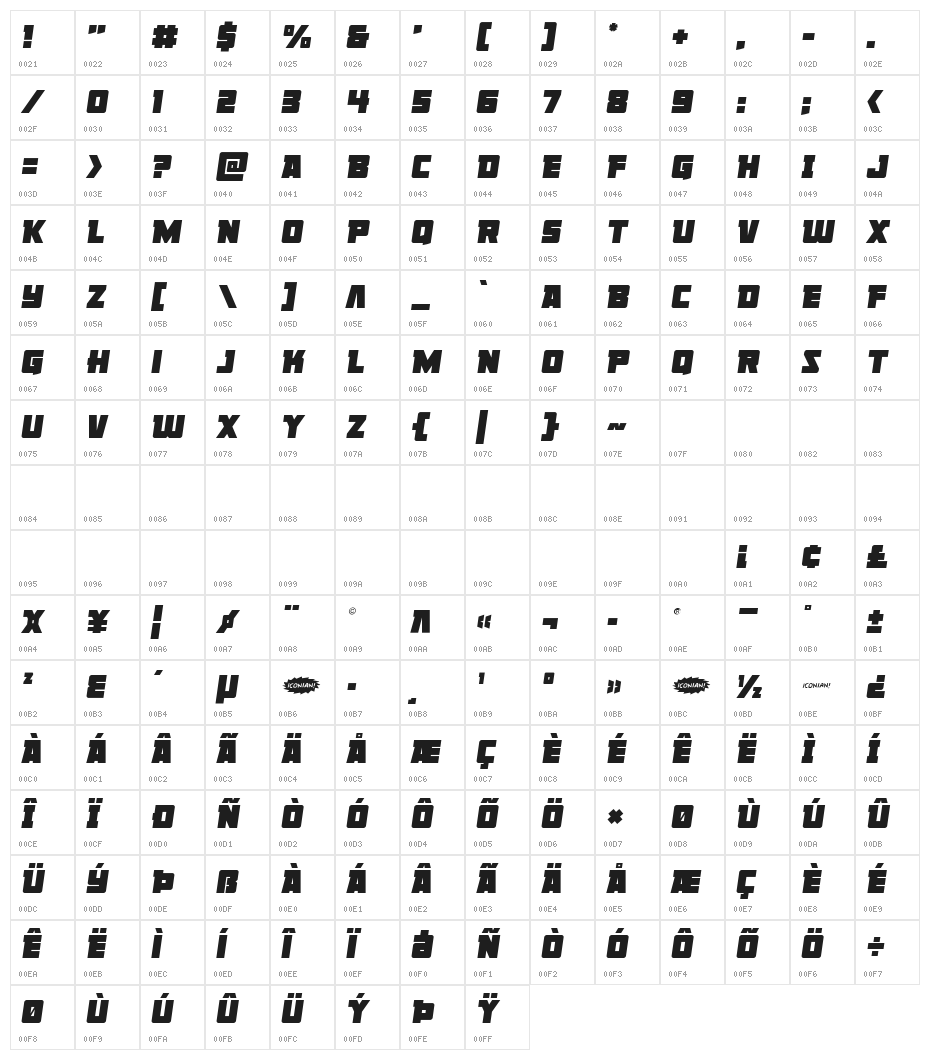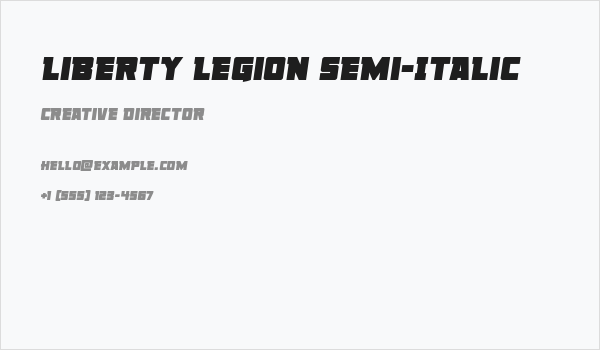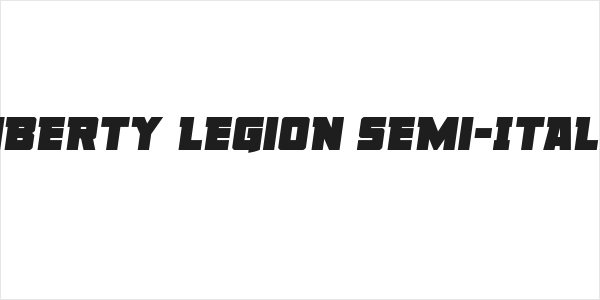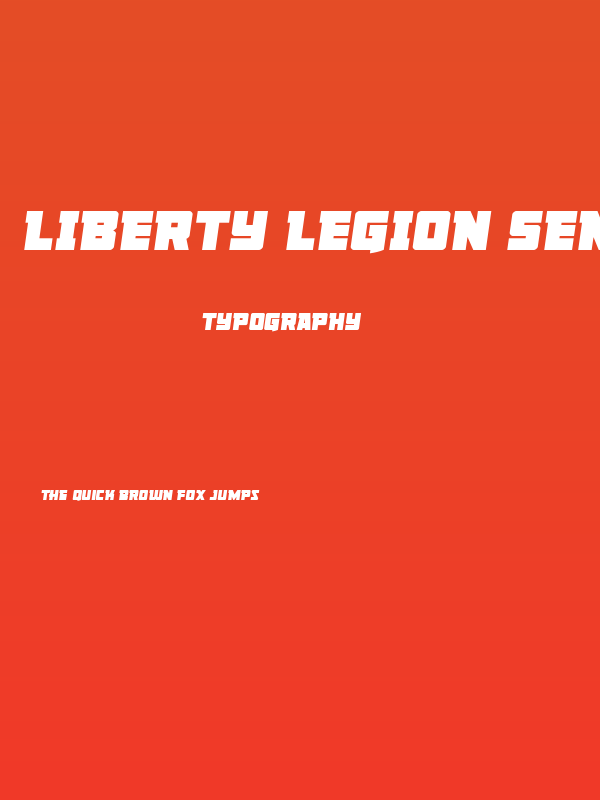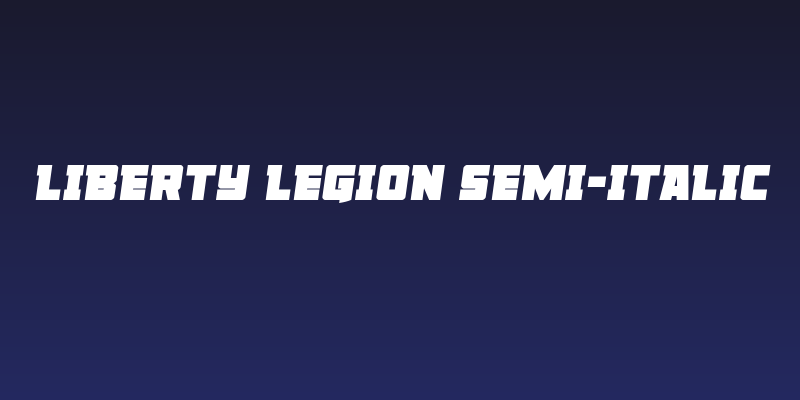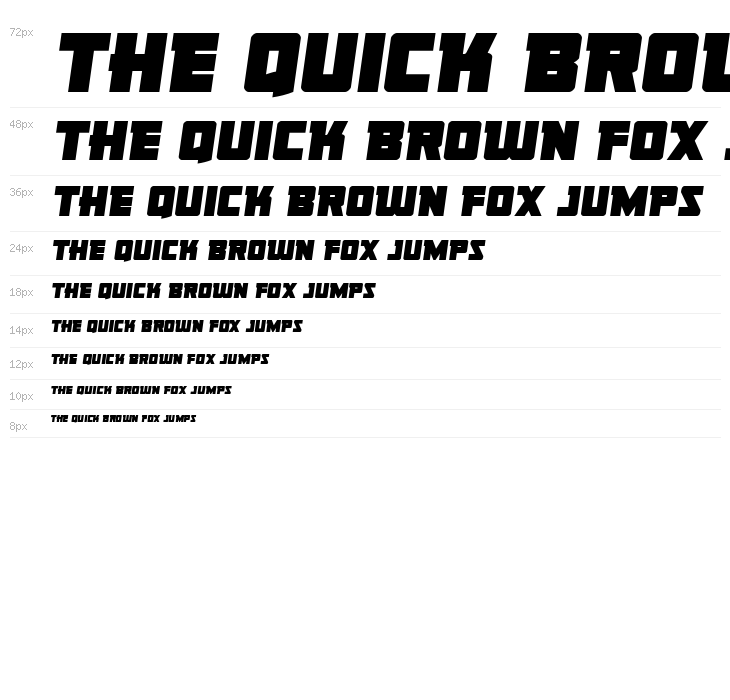
Liberty Legion Semi-Italic Font
Liberty Legion Semi-Italic Description
This font features a bold and dynamic design with a strong, angular appearance. The letters are slightly italicized, giving them a forward-leaning stance that conveys motion and energy. The strokes are thick and consistent, providing a robust and impactful look. The characters are tightly spaced, enhancing the compact and powerful aesthetic. This style is reminiscent of sports or action-themed designs, making it ideal for projects that require a sense of strength and movement. The numbers and special characters maintain the same bold and angular style, ensuring consistency across all elements.
| Proposed Projects | Ideal for sports branding, action movie posters, video game titles, and dynamic event promotions. |